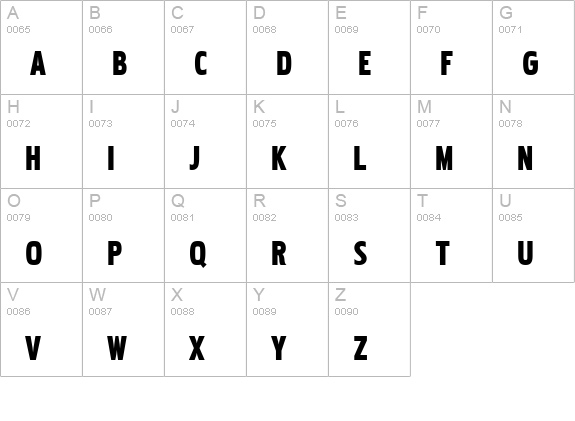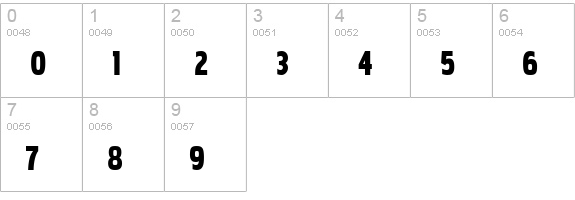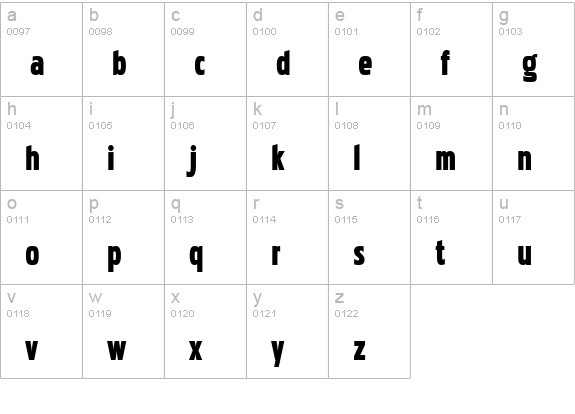
Pakenham Cnd Blk Font Details
Pakenham Cnd Blk font is a modern and stylish typeface that exudes elegance and sophistication. This bold and eye-catching font is perfect for creating impactful designs that demand attention. With its sleek lines and strong presence, Pakenham Cnd Blk font is sure to make a statement in any project. The best part? Pakenham Cnd Blk font is available for free download at FontsMarket.com. This means you can easily add this versatile font to your collection without any cost. Whether you're working on a branding project, poster design, or website layout, Pakenham Cnd Blk font will elevate your work to the next level. Don't miss out on this fantastic opportunity to enhance your designs with the stunning Pakenham Cnd Blk font. Download it for free today and start creating show-stopping visuals that leave a lasting impression.